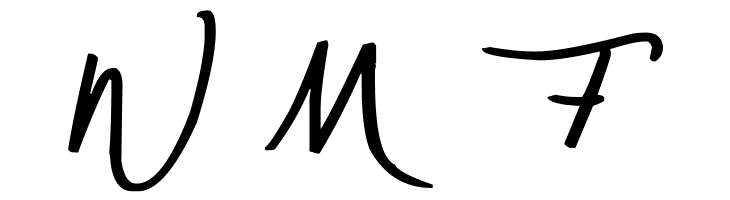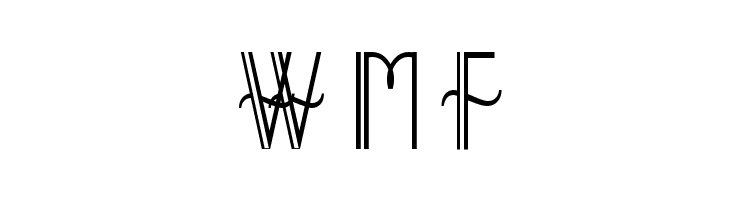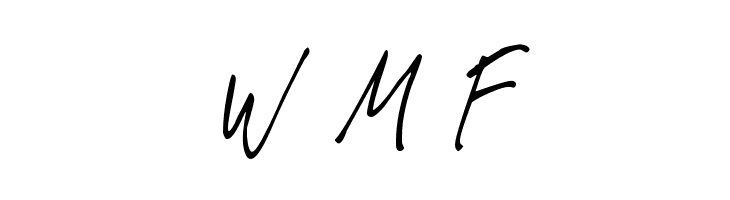
A bold, rounded font with a modern and clean design.
A jagged, horror-themed font with sharp, irregular strokes.
A casual, playful handwritten font with smooth, flowing curves and connected letters.
A fluid and dynamic handwritten font with smooth curves and natural elegance.
An ornate and decorative script font with intricate swirls and flourishes.
A playful, hand-drawn font with a sketch-like, three-dimensional appearance.
A textured, distressed font with a modern, graffiti-like style.
A traditional Gothic font with ornate, angular letterforms and dramatic curves.
A bold, geometric font with a modern, tech-inspired style.
A modern, geometric font with diagonal cuts and a sleek, futuristic style.
A geometric font with diamond-shaped cutouts and a modern, edgy style.
A bold, italicized font with high contrast and elegant style.
A bold, textured font with a hand-drawn, artistic style.
A decorative set of diamond and gemstone icons in diverse styles.
A playful, dice-themed decorative font with bold, high-contrast characters.
A bold, geometric font with a futuristic, digital aesthetic.
A futuristic, geometric font with sharp, angular characters.
A playful, handmade-style font with loops and curves, perfect for creative projects.
A playful, handwritten font with bold, irregular strokes and a lively appearance.
A decorative font with unique illustrative characters replacing traditional letters and numbers.
A bold, graffiti-inspired font with dynamic shapes and intricate details.
A bold, distressed font with a grungy, vintage texture and shadow effect.
A bold, distressed font with a grunge effect and rugged texture.
A bold, distressed font with a grunge, industrial style.
A digital, segmented font inspired by classic LED displays.
A bold, expressive handwritten font with dynamic slanted strokes.
A playful, handwritten font with an energetic and casual style.
A playful handwritten font with a casual and friendly vibe.